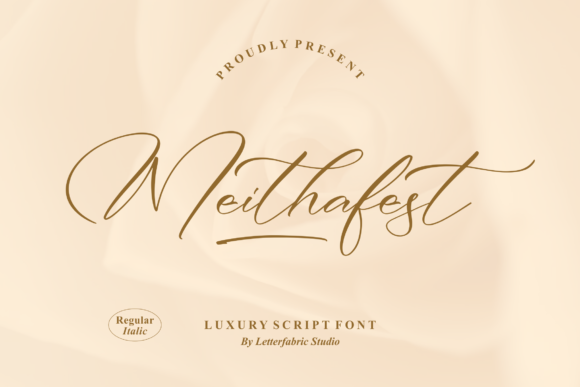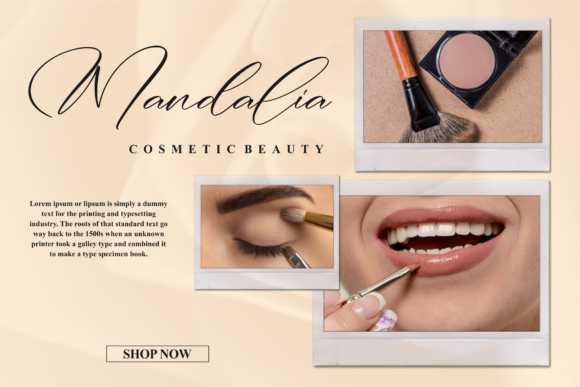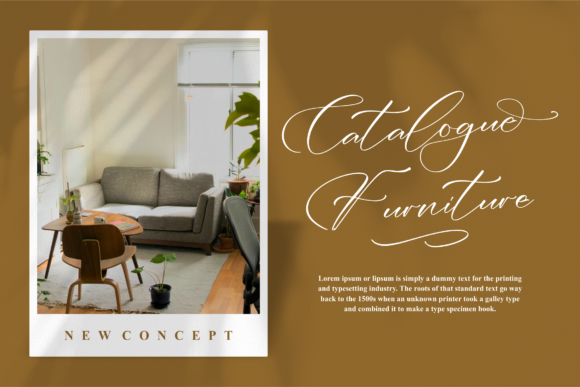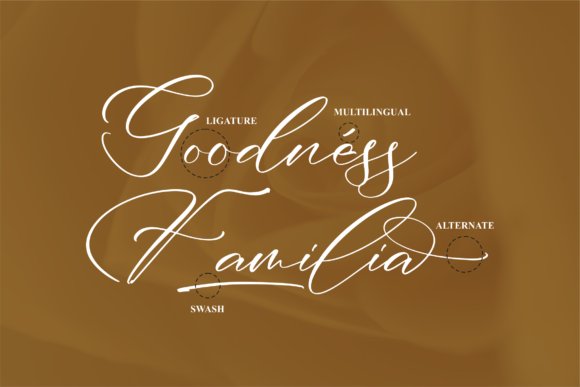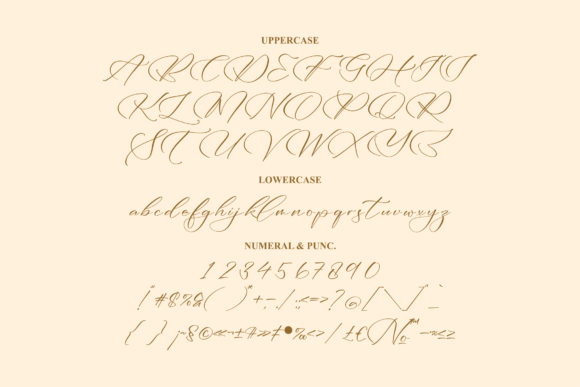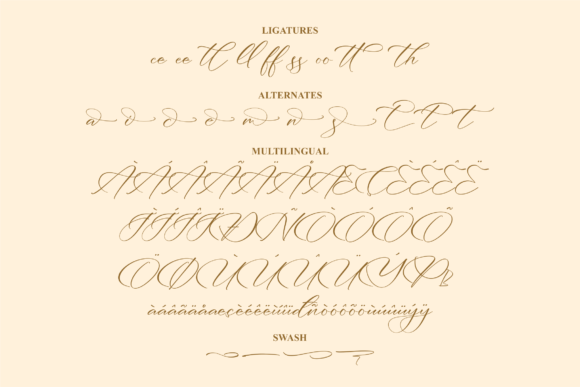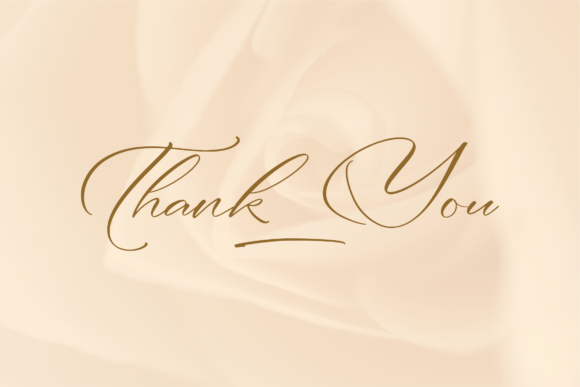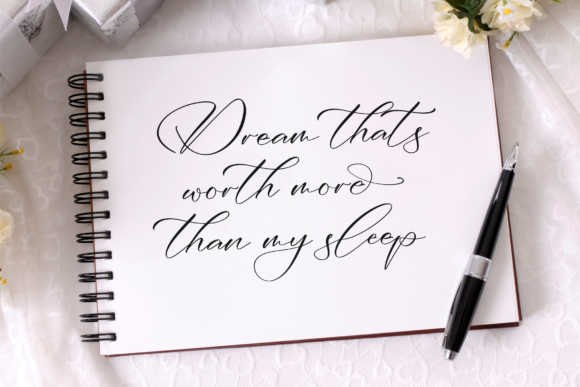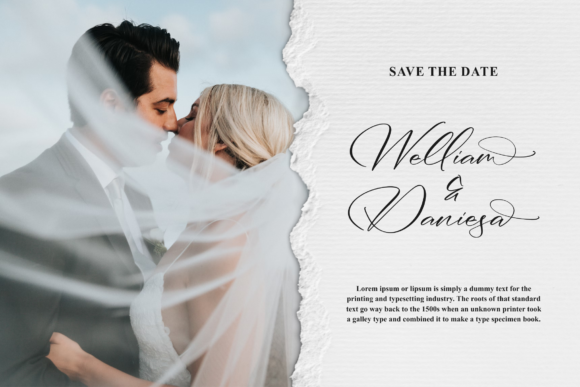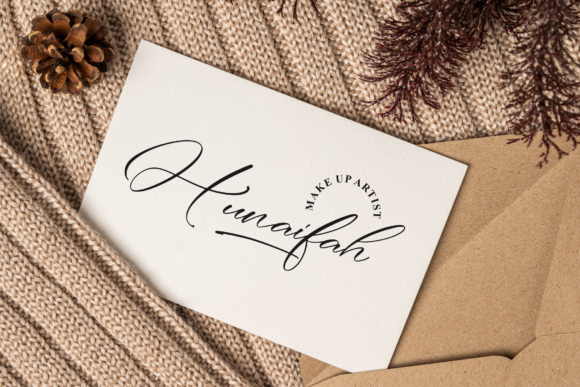
Meithafest Font
About Meithafest Font
Introducing “Meithafest” – a captivating and delicate script font that effortlessly combines elegance with contemporary style. This font is a versatile gem that is sure to elevate your branding projects, t-shirt designs, creative products, and more to a whole new level.
Meithafest’s sophisticated and fashionable appearance makes it an excellent choice for crafting memorable logos that leave a lasting impression. Its carefully designed curves and strokes lend an air of refinement and creativity, setting the stage for a strong visual identity that resonates with your target audience.
When it comes to t-shirt printing, Meithafest brings a touch of sophistication to your apparel designs. Whether you’re aiming for a casual or upscale look, this font seamlessly adapts to your vision, making your shirts stand out in a sea of options. The font’s unique personality ensures that your message is conveyed with both style and clarity.
Meithafest’s creative flair extends to various other creative products as well. Whether you’re designing packaging, merchandise, or promotional materials, this font adds an element of allure that captivates the viewer’s attention. Its versatility shines as it effortlessly complements a wide range of contexts, making it a go-to choice for your creative endeavors.
One of the font’s standout features is its PUA encoding, which grants you easy access to an array of exquisite glyphs and swashes. This feature empowers you to customize your designs with a myriad of stylistic choices, allowing you to truly make Meithafest your own and tailor it to suit your project’s unique requirements.
Meithafest’s ability to transcend contexts and adapt to different design needs makes it an invaluable asset in your creative toolkit. Its delicate yet impactful presence adds a touch of sophistication to every project it graces, while its PUA encoding offers you a treasure trove of design possibilities. Whether you’re creating logos, t-shirts, or various other creative products, Meithafest is your gateway to unlocking extraordinary results.